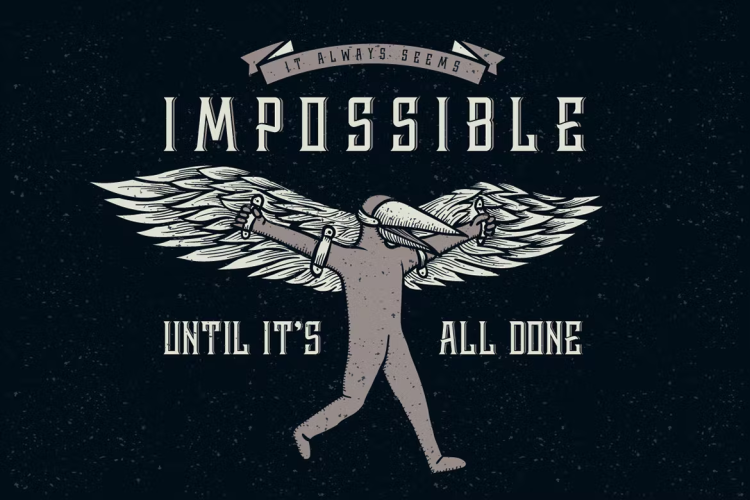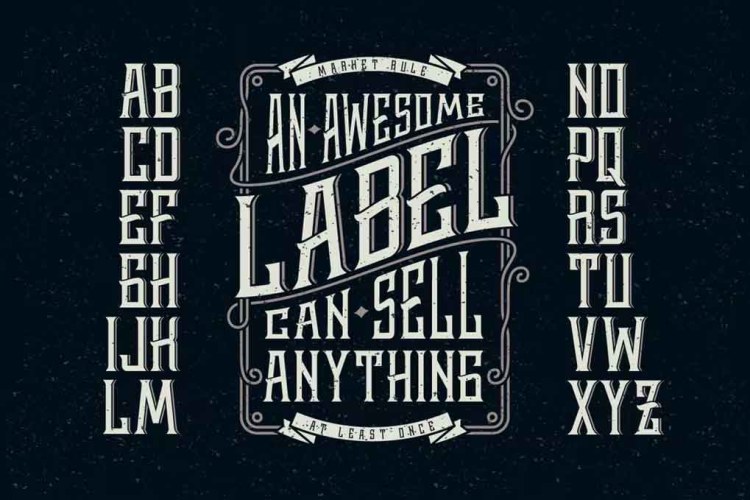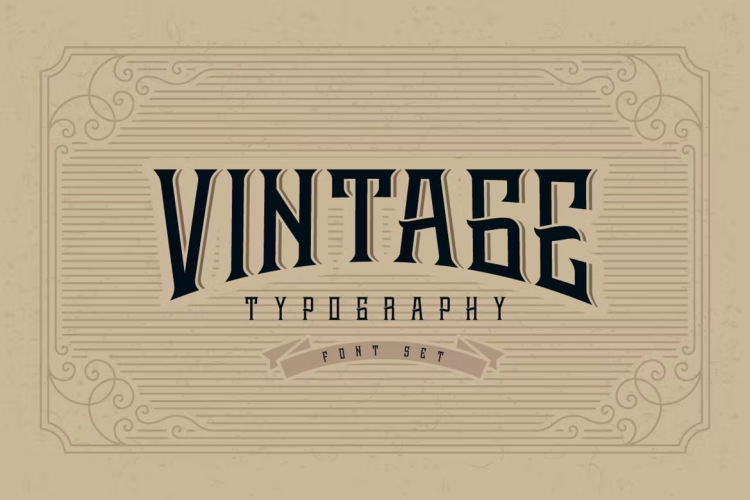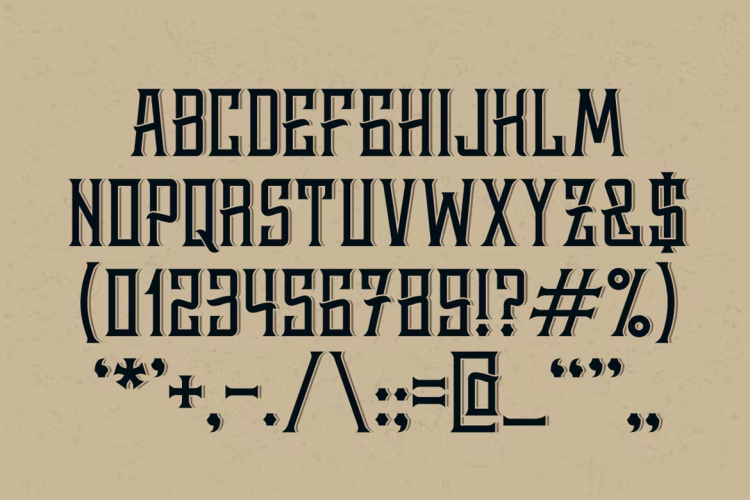
Whiskey label Font
Where Whiskey label Font works best
Whiskey label Font gives long-form text a classic, trustworthy rhythm — ideal for magazine spreads, annual reports and book interiors.
Pair Whiskey label Font with generous letter-spacing for wordmarks in fashion, hospitality, wine and jewellery branding.
Use Whiskey label Font for slide titles in Keynote, PowerPoint or Google Slides to add authority without looking dated.
What is Whiskey label Font good for?
Whiskey label Font is a Serif Fonts typeface tagged Classic, Packaging, Professional, Serif. It works well for headlines, logos, posters, social media graphics and branding projects that need a distinctive serif fonts look.